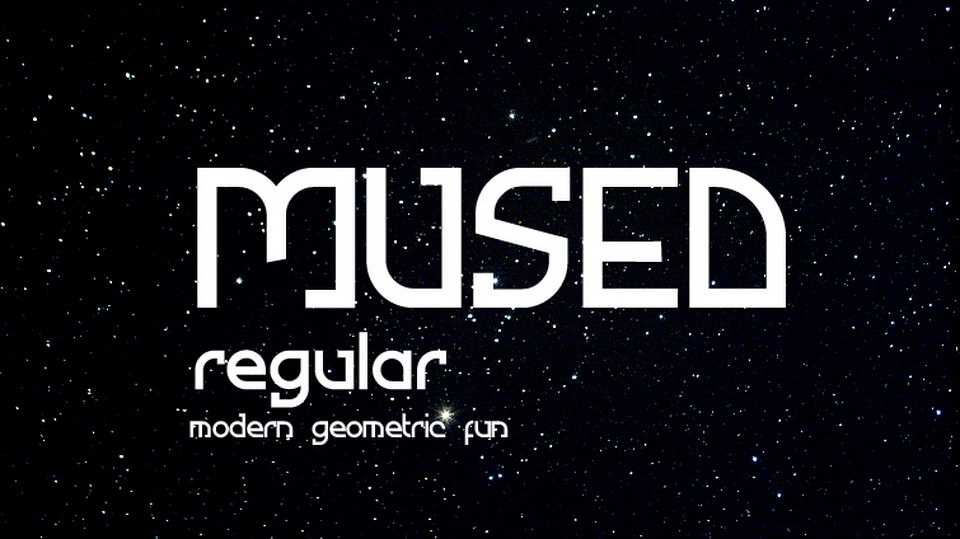
Download Mused font, a modern geometric typeface with a futuristic look. Mused font is suitable for headlines, posters, prints and other artworks.
Designer: Tapiwanashe Sebastian Garikayi